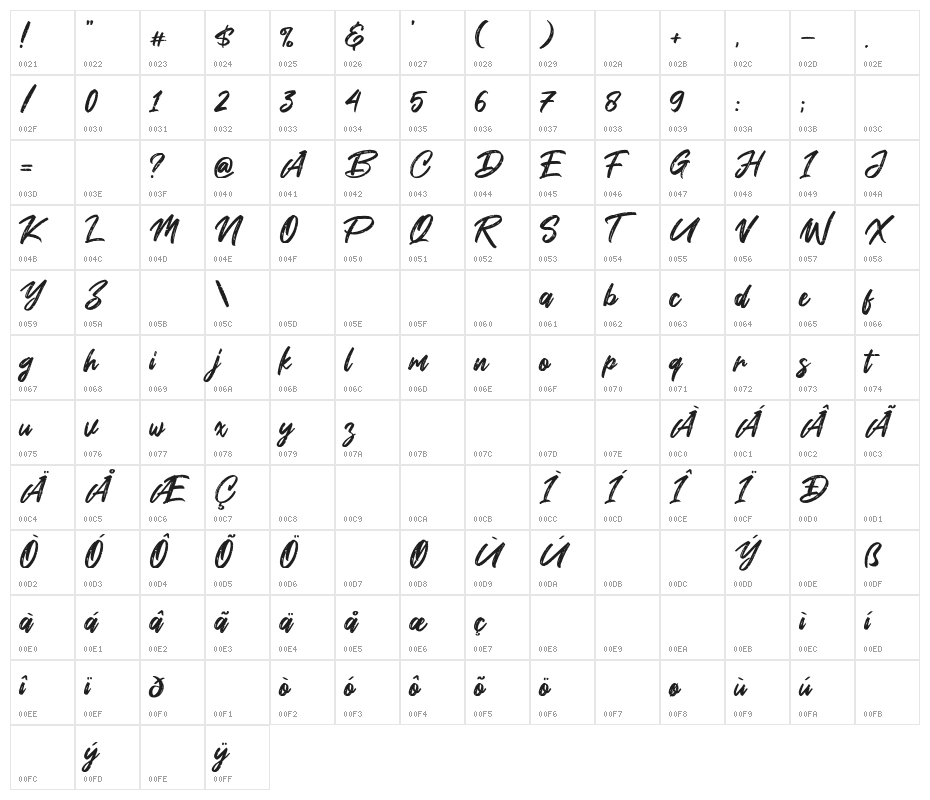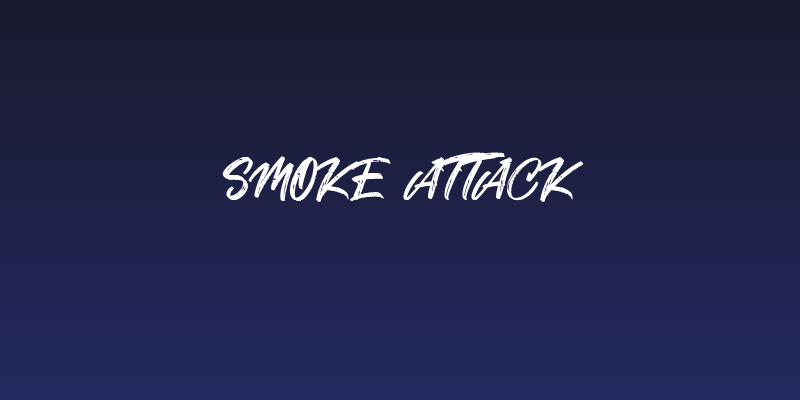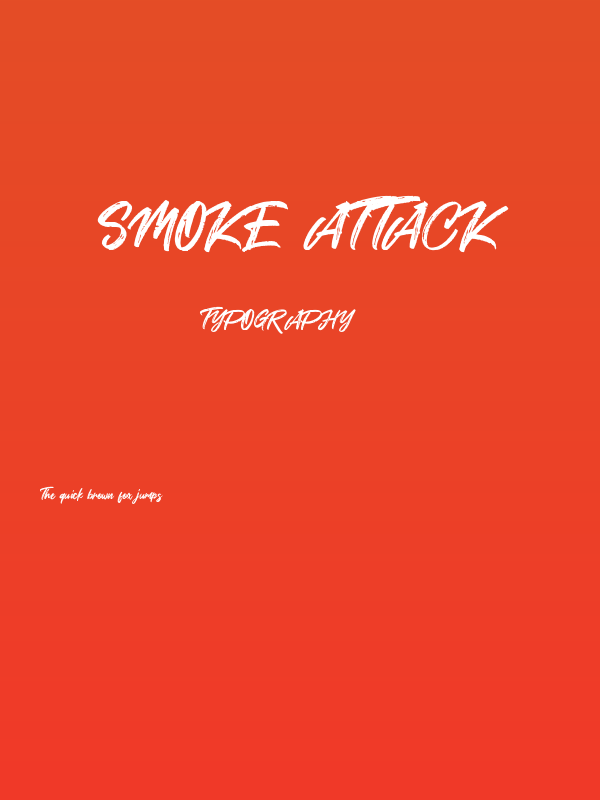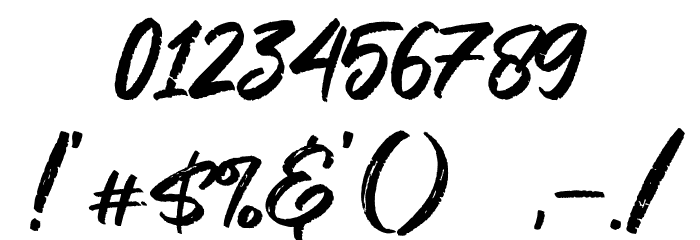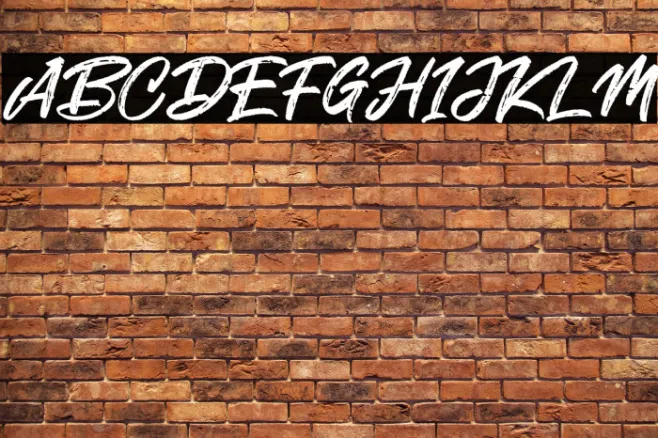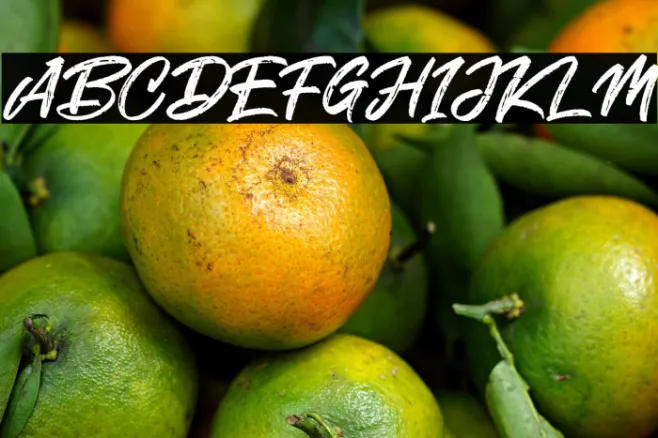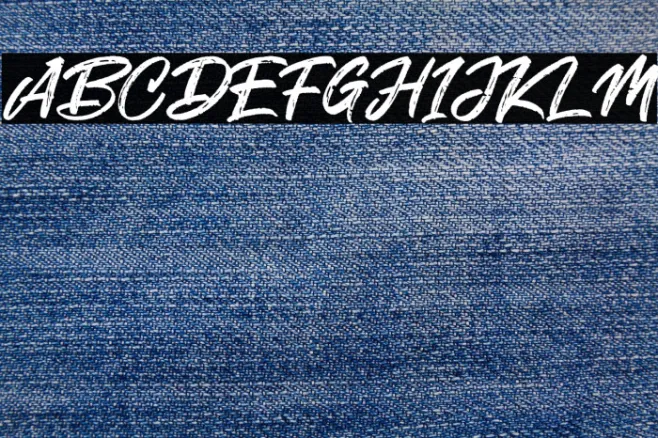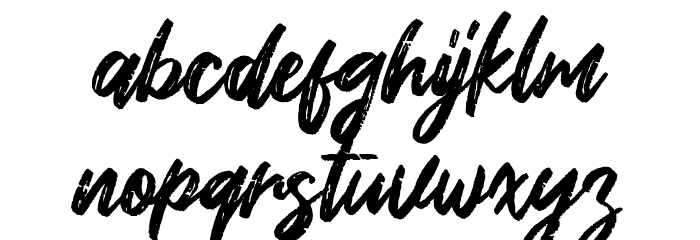
Smoke Attack Font
Smoke Attack Description
This font features a bold and dynamic script style with a brush-like texture, giving it an energetic and expressive appearance. The letters are connected in a fluid manner, resembling natural handwriting with a modern twist. The uppercase and lowercase characters maintain a consistent style, with a slight slant that adds to the casual and informal feel. The numerals and special characters are crafted to match the overall aesthetic, ensuring a cohesive look across all elements. This font's unique character is perfect for projects that require a personal touch or a sense of movement.